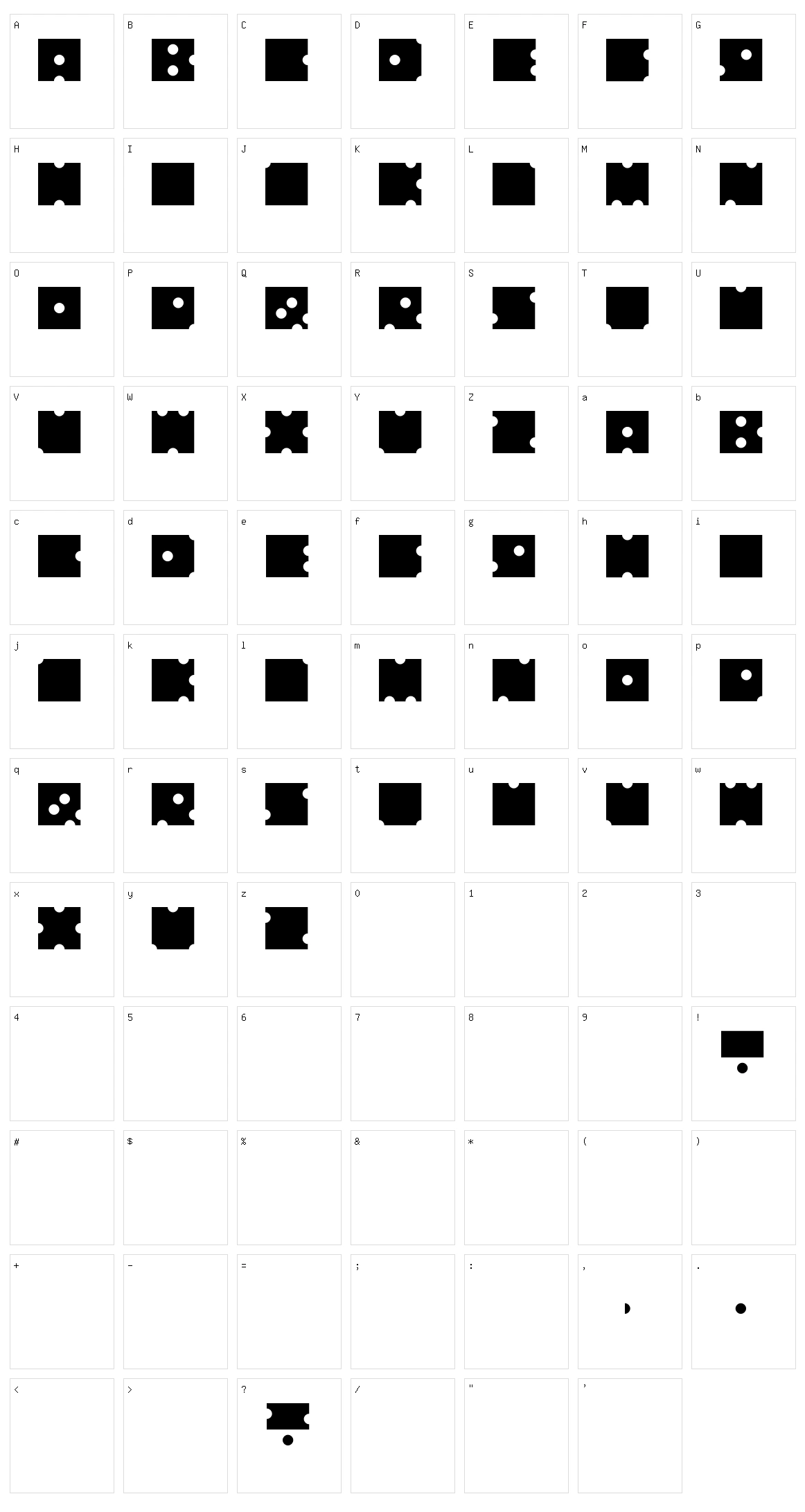
The free font No Dice is carefully designed by Mattis Folkestad, showcasing a thoughtful balance of creativity and usability and falls under the Square font style. When you download the ZIP file, it contains only 2.66 KB of font files, making it lightweight and quick to download. Please review the license details below to understand permitted usage and distribution rights. If license information is not available, we recommend using this font for personal projects only or contacting the author directly for commercial usage permissions.